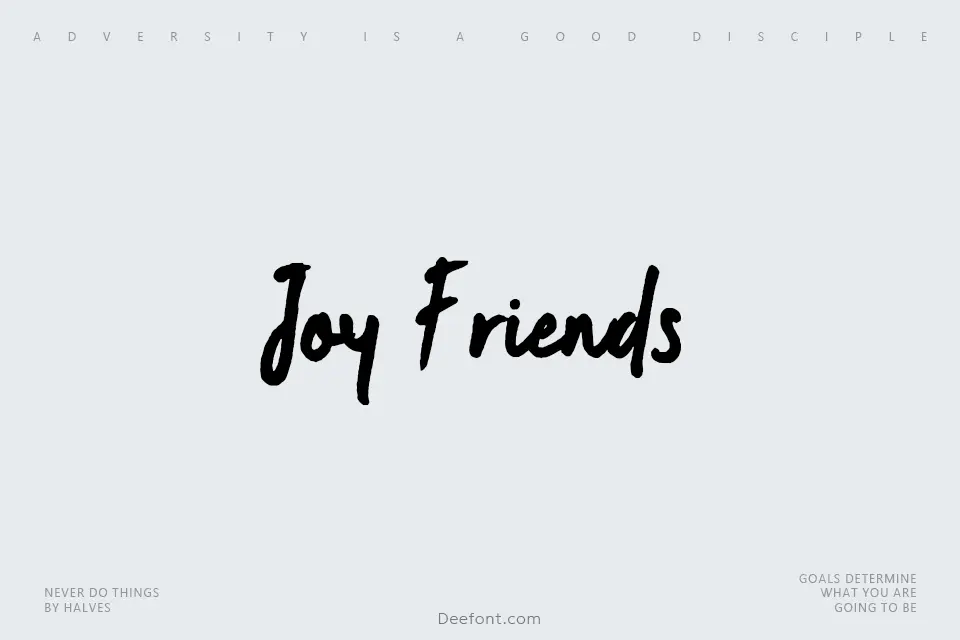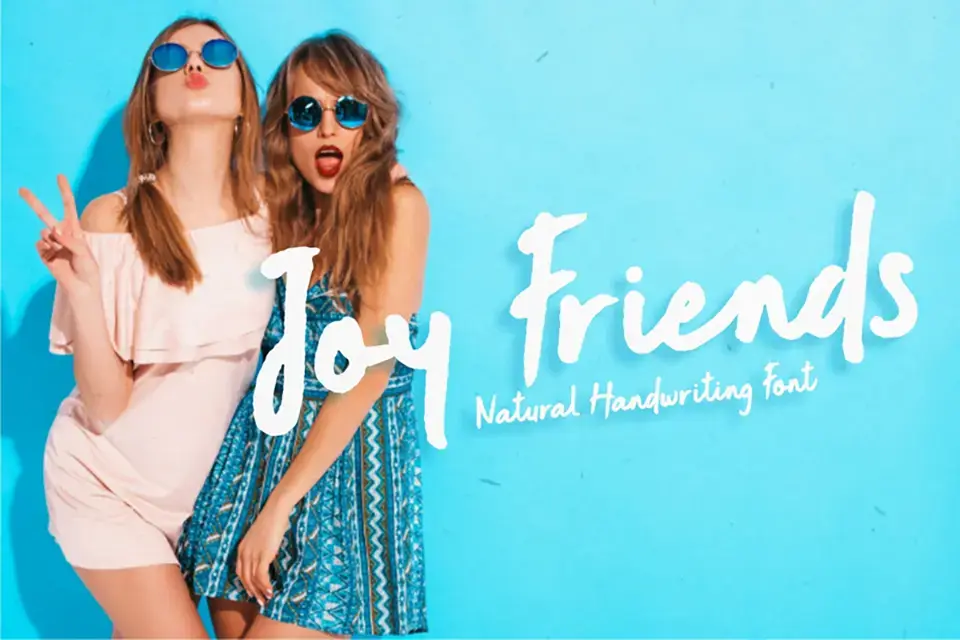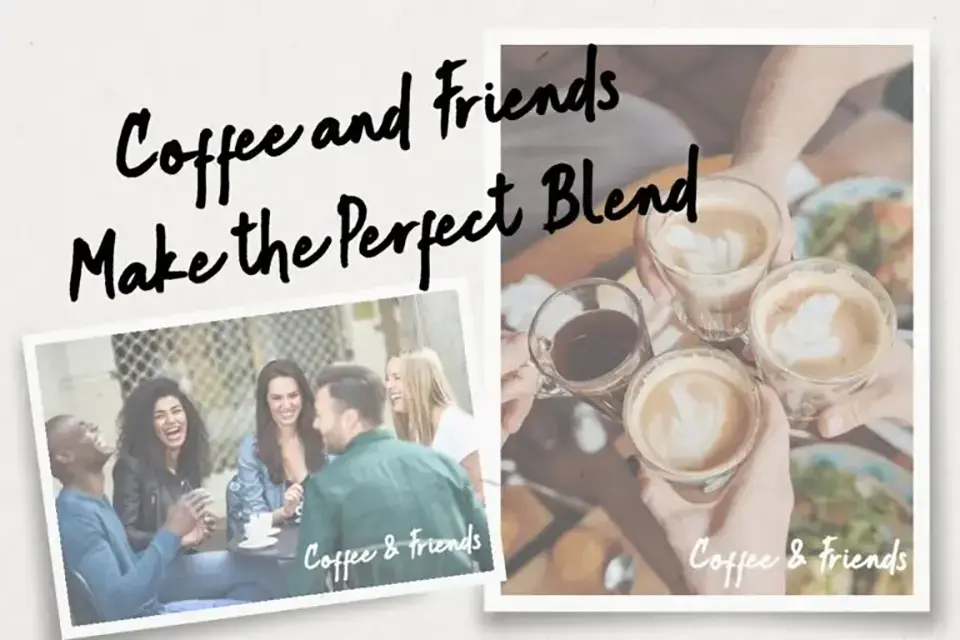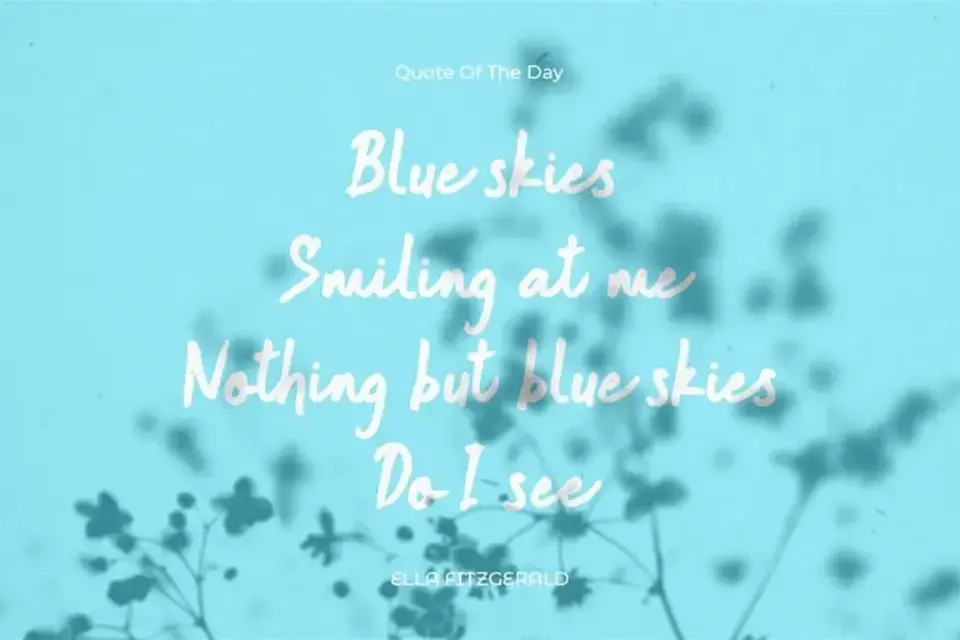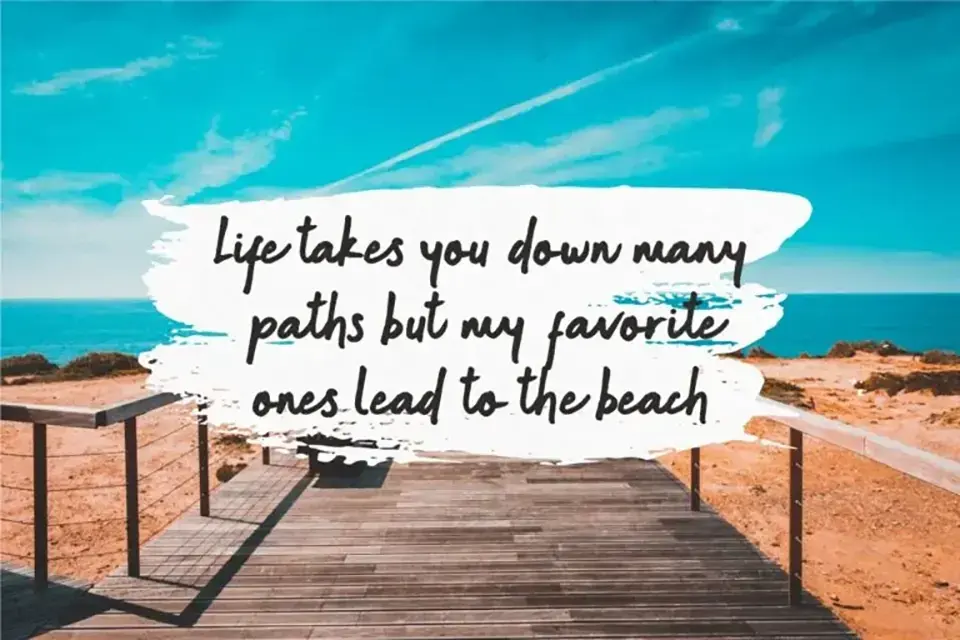
Joy Friends Font
Unleash creativity with the Joy Friends Font, a delightful handwritten script by PutraCetol Studio. Featuring a bouncy baseline and smooth connections, this font exudes a fun, casual atmosphere perfect for greeting cards, wedding invitations, and playful branding. Its natural flow and whimsical style make it an excellent choice for projects requiring a personalized, hand-crafted feel.